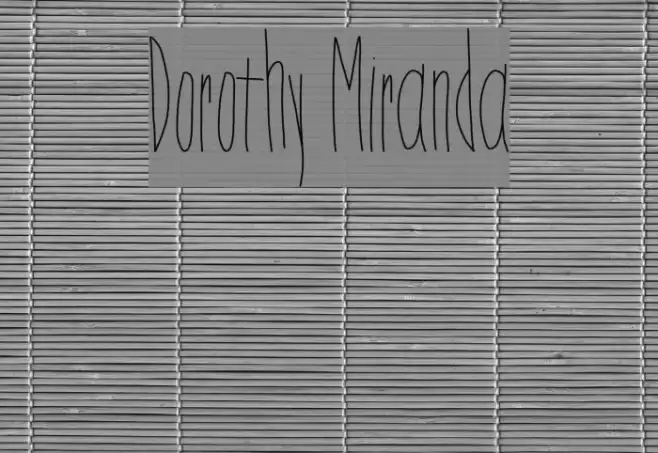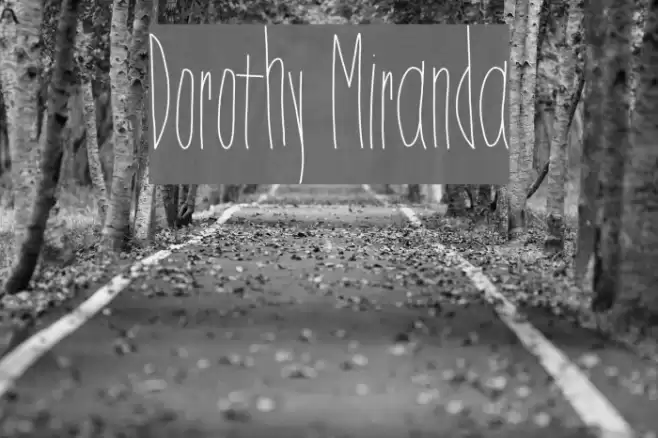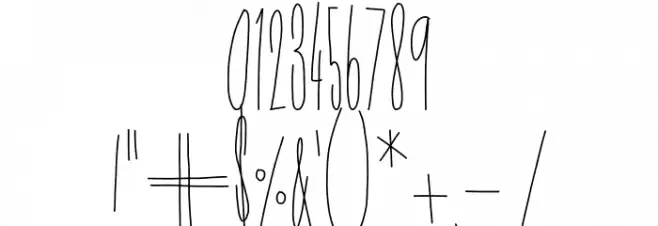
Dorothy Miranda Font
Dorothy Miranda Description
This font features a tall, narrow design with a handwritten aesthetic, characterized by its thin strokes and elongated letterforms. The uppercase and lowercase letters maintain a consistent height, creating a uniform appearance. The numerals and special characters follow the same slender style, adding to the cohesive look. The overall design is playful yet elegant, making it suitable for creative projects. Its unique style is reminiscent of casual handwriting, offering a personal touch to any text.
A tall, narrow handwritten font with thin strokes and elongated letterforms from Uncategorized fonts.
- Proposed Projects: Ideal for invitations, greeting cards, personal branding, and creative projects that require a personal touch.
- Weight: Light
- Overall Style: Casual, Playful
- Use Case: Headlines, Logos, Invitations